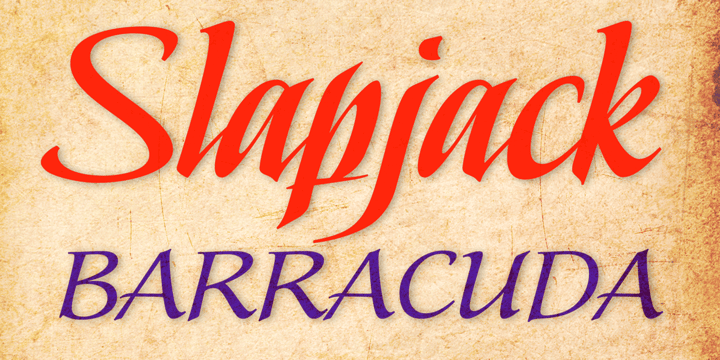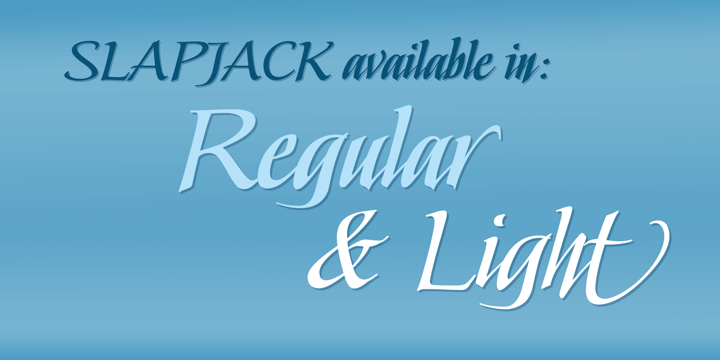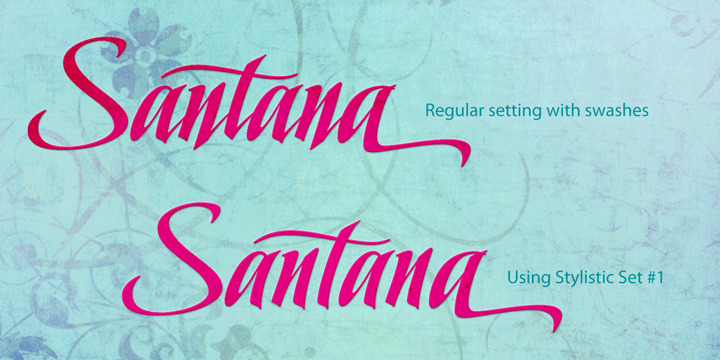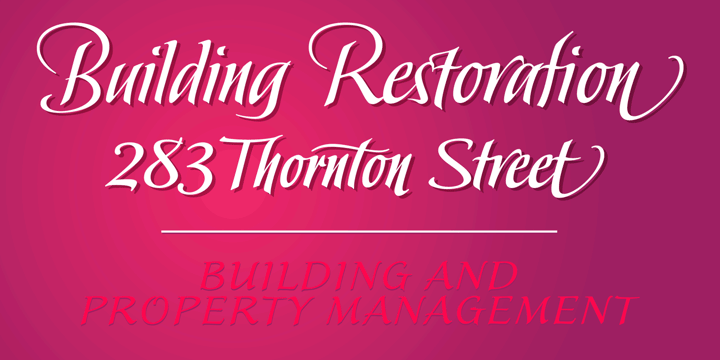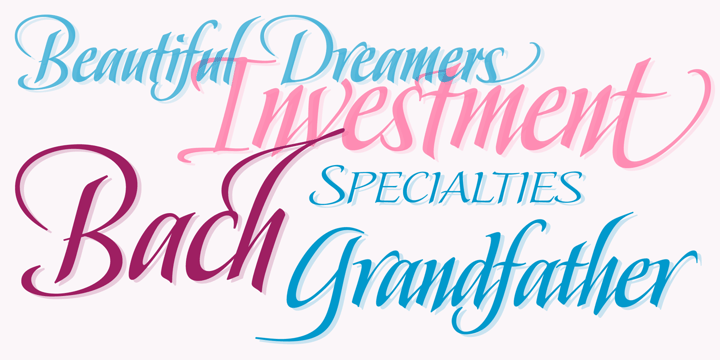
Slapjack
Font Family by Stephen Rapp
Slapjack is a unique rendition of a broad-edged calligraphic script ideal for packaging, signage, and titling. It's presence is strikingly bold and rhythmic, yet stylishly elegant. With a glyph count well over 700, Slapjack is a fully-featured pro font. Both regular and light weights have contextual and stylistic alternates, stylistic sets, swashes, ligatures, fractions, and Central European language support. Using Adobe InDesign which supports Stylistic Sets allows you to instantly convert your text to a version without baseline connectors for a more streamlined look. These can also be selected via the glyph palette. As a bonus feature, unlike most script fonts, Slapjack is designed to also set well in all caps adding to its versatility.